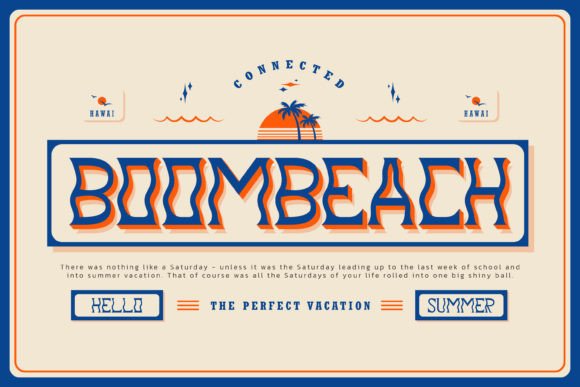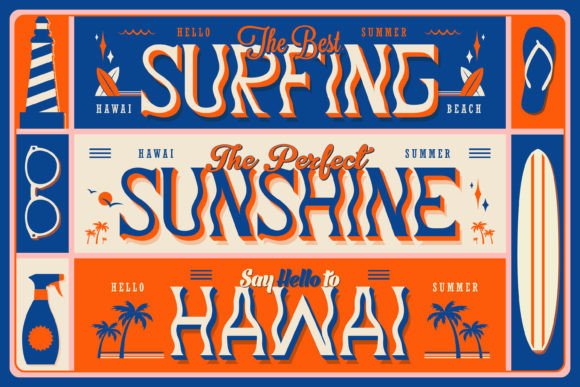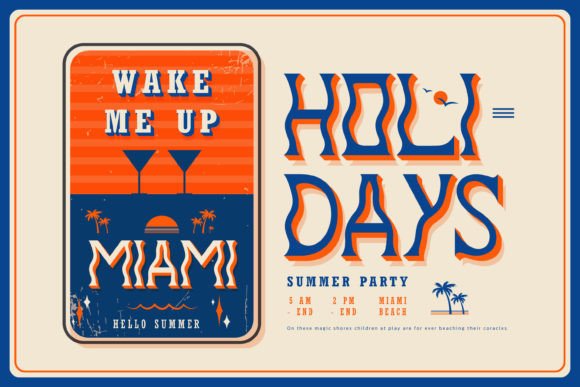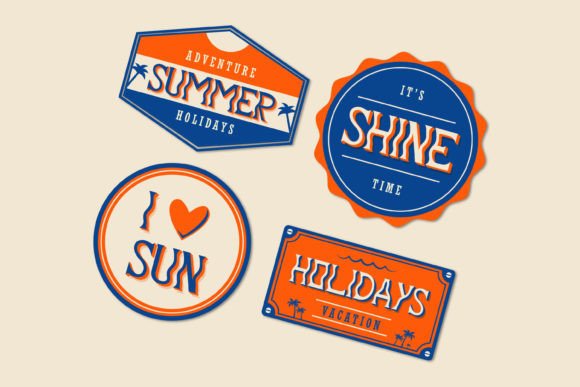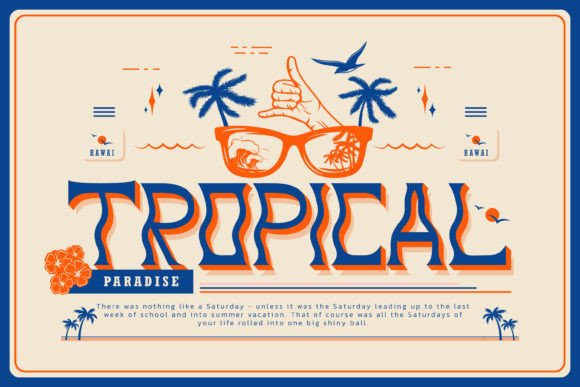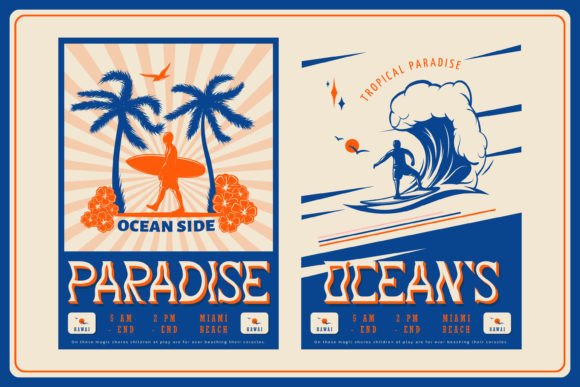
Introduction to Egoiz Font
Egoiz is a wavy, whimsical, and uniquely shaped display font.
Trendy and stylish, this font will elevate each of your creations .